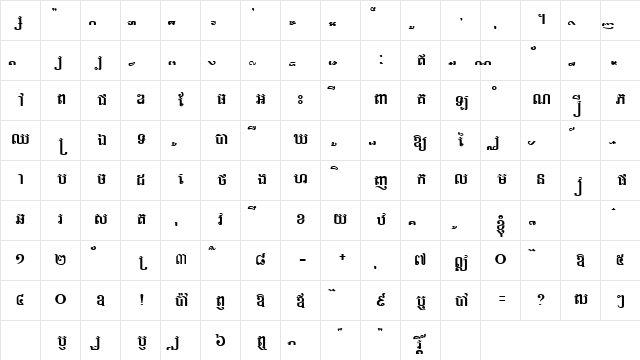
Thaprum Regular Free Font
Thaprum Regular
Complete Thaprum Regular glyph index. Displaying only characters natively supported by Thaprum Regular font.
Design Context for Thaprum
Thaprum is a composed and adaptable typeface that performs quietly and consistently across a wide range of design contexts.